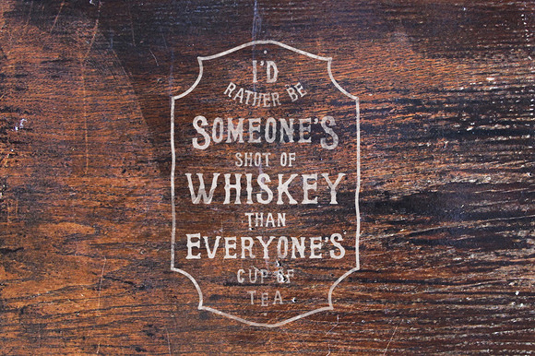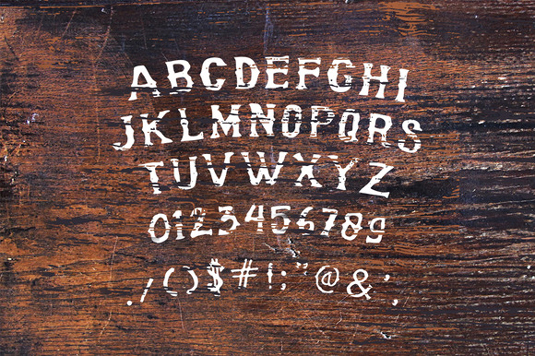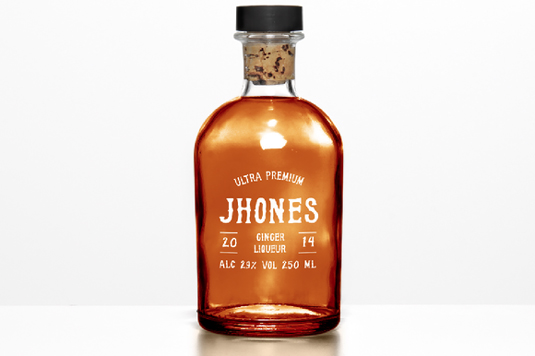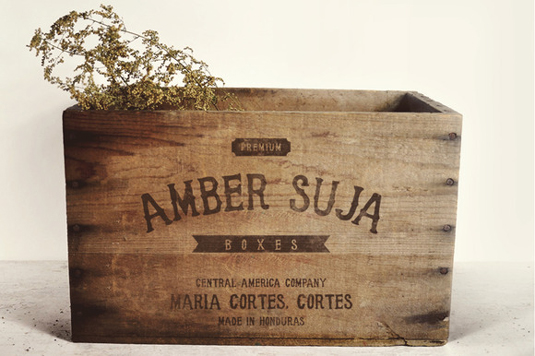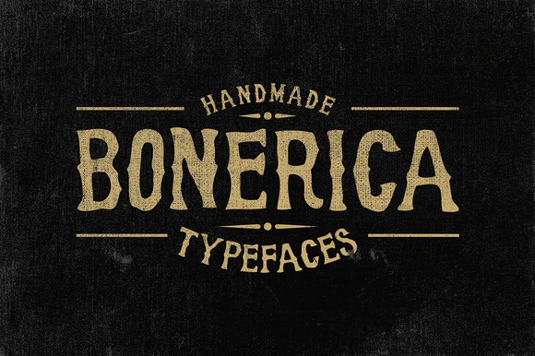
Font of the day: Bonerica
Each day of the week we showcase one of our favourite fonts – today it's Bonerica by Panji Nugraha, which is free to download.
Bonerica by Panji Nugraha
Type designer Panji Nugraha is behind today's font of choice, Bonerica. A modern serif with a vintage twist, Bonerica is brilliant for logo designs, packaging, posters and more.